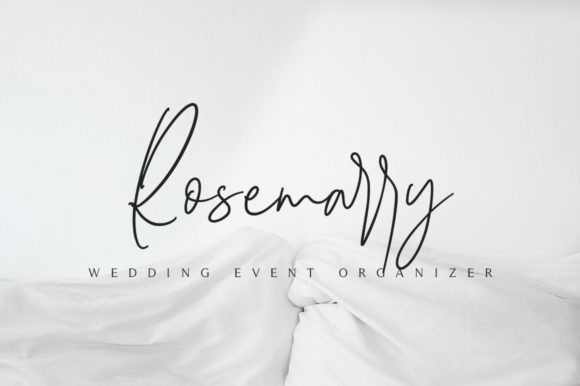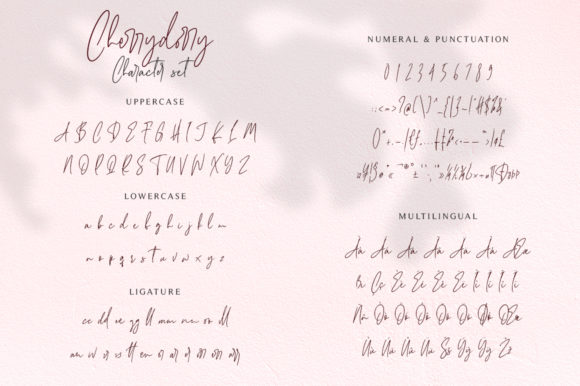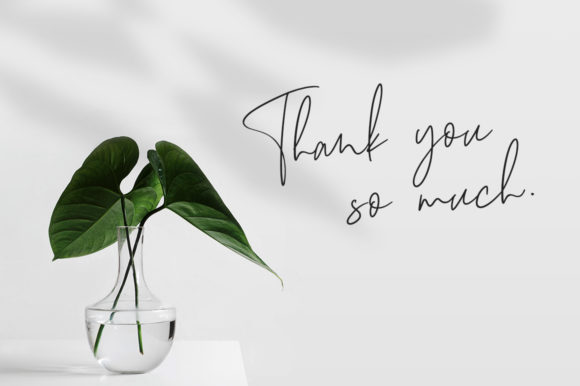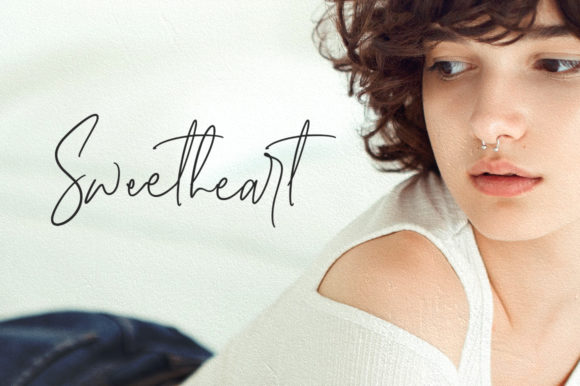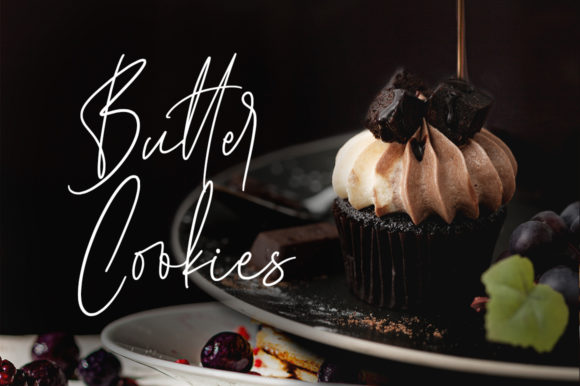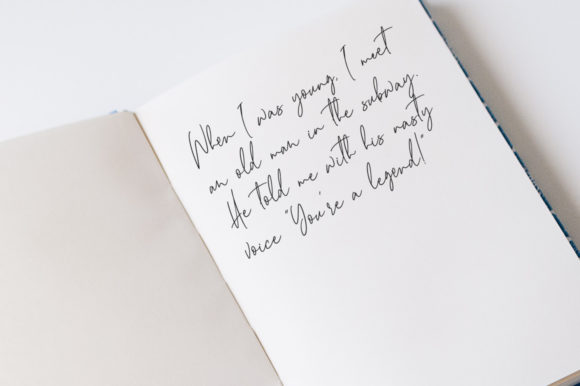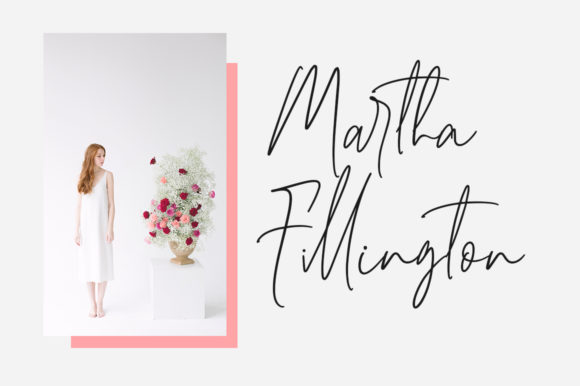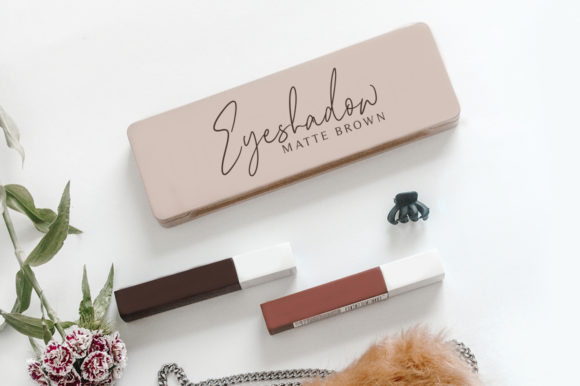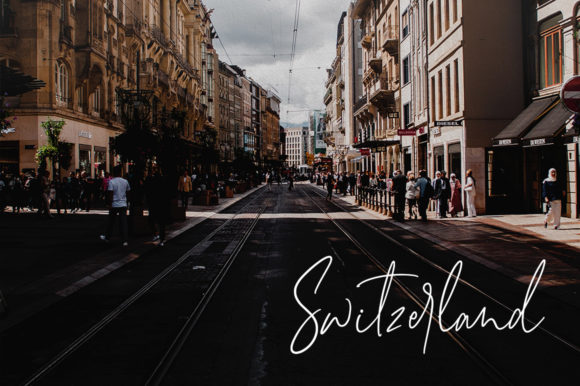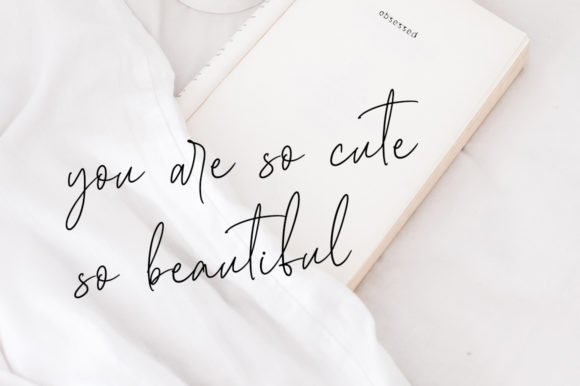
HomeScript FontsCherrydorry Font Script Fonts Cherrydorry Font FacebookXPinterestWhatsApp Cherrydorry Font Poster 2 Cherrydorry Font Poster 3 Cherrydorry Font Poster 4 Cherrydorry Font Poster 5 Cherrydorry Font Poster 6 Cherrydorry Font Poster 7 Cherrydorry Font Poster 8 Cherrydorry Font Poster 9 Cherrydorry Font Poster 10 Cherrydorry Font Poster 11 Cherrydorry Font Poster 12 About Cherrydorry Font Cherrydorry is a chic and elegant handwritten font with classy ligatures. DOWNLOAD ON CREATIVE FABRICAThis font is sold and delivered by Creative Fabrica. Font Canyon may earn a commission if you buy through this link. People also explored Disneycute Font Healing Novelia Font In Bloom Font Japanese Font Caila Font Sublimation Font Celebrate Font Breesly Font Djaroem Font 306 0 TagsCherrydorry Font Previous articleSomeday Script FontNext articleEvelyn Font LEAVE A REPLY Cancel reply Comment: Please enter your comment! Name:* Please enter your name here Email:* You have entered an incorrect email address! Please enter your email address here Website: Save my name, email, and website in this browser for the next time I comment. Personal Use Free Barokah Personal Use Free Read more about this font Sushi Stroke Personal Use Free Read more about this font Strasua Personal Use Free Read more about this font Heartburn Personal Use Free Read more about this font BLOG Using Fonts in Digital Marketing: Tips to Strengthen Your Brand Identity In the realm of digital marketing, every visual element plays a crucial role in shaping a brand's identity, and fonts are no exception. The... Fonts That Capture the Spirit of New York City Where to Buy American Fonts Online in 2024 Free vs Paid Fonts: Why Investing in Premium Fonts Is Worth It